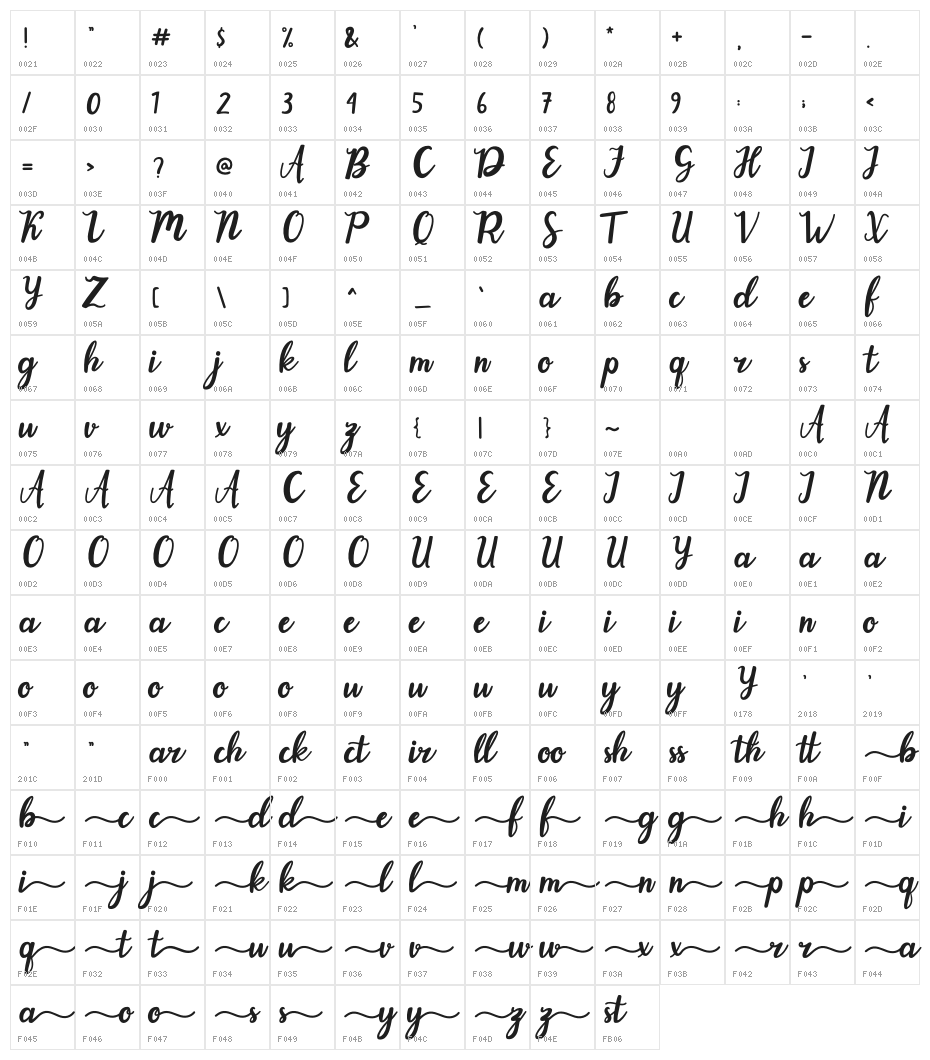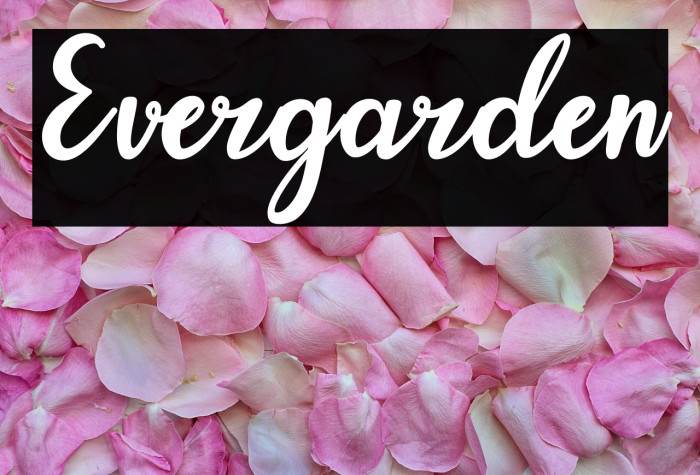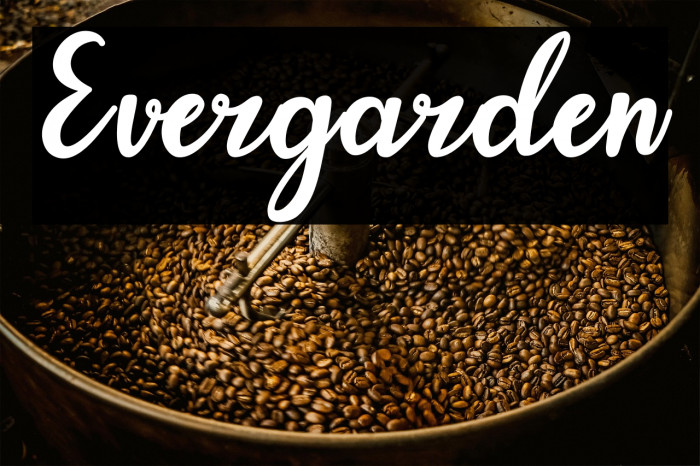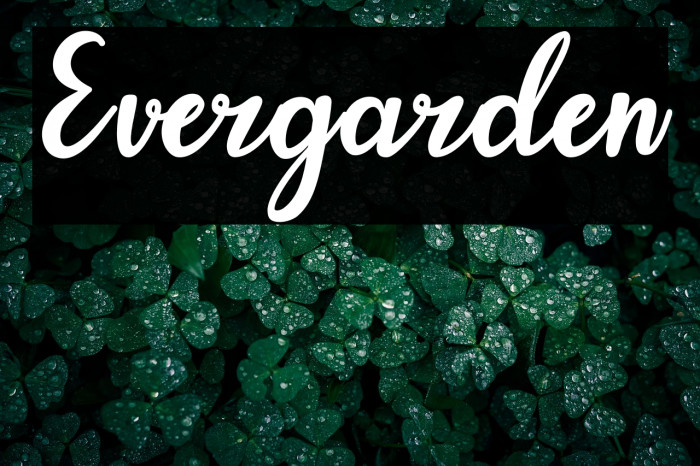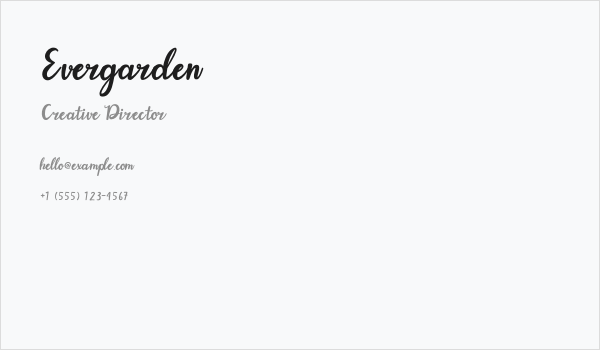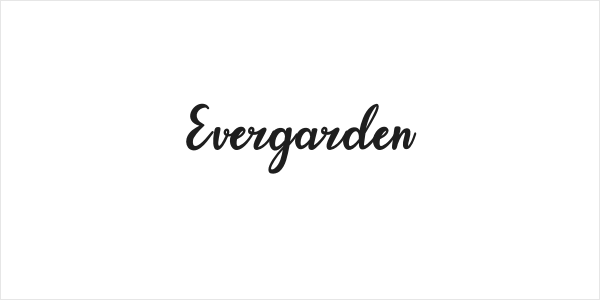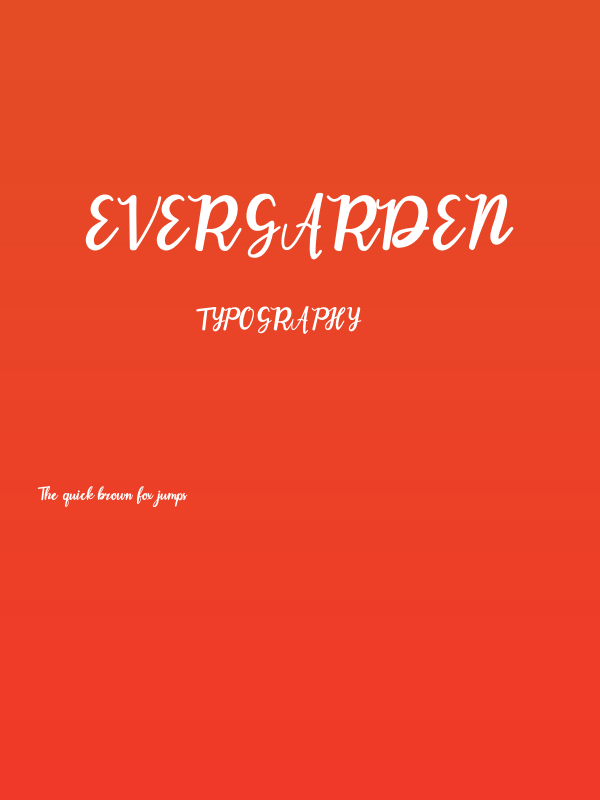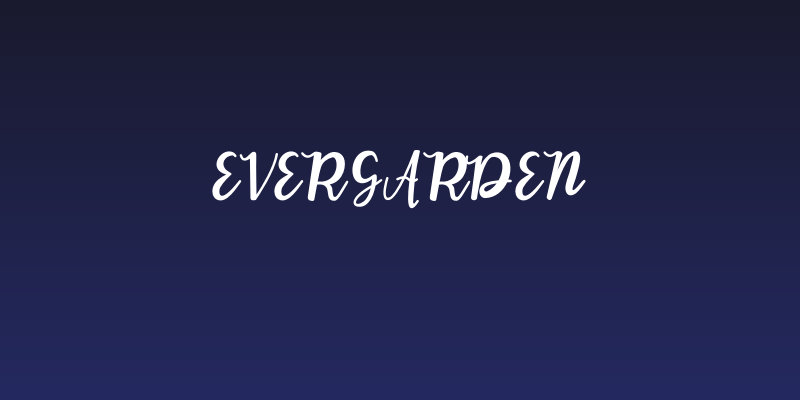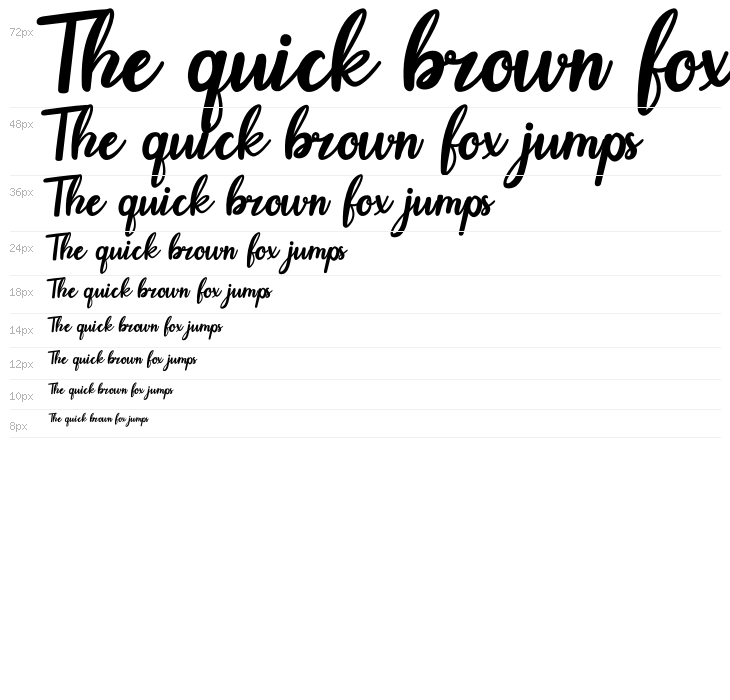
Evergarden Font
Evergarden Description
This font features a flowing, cursive style with elegant, sweeping lines that give it a sophisticated and artistic appearance. The uppercase letters are characterized by their dramatic loops and flourishes, while the lowercase letters maintain a consistent, smooth flow. The numbers and special characters are designed to complement the overall aesthetic, maintaining the same fluidity and grace. The font's design is both decorative and legible, making it suitable for a variety of creative applications.
| Proposed Projects | Ideal for wedding invitations, greeting cards, branding, and artistic projects. |